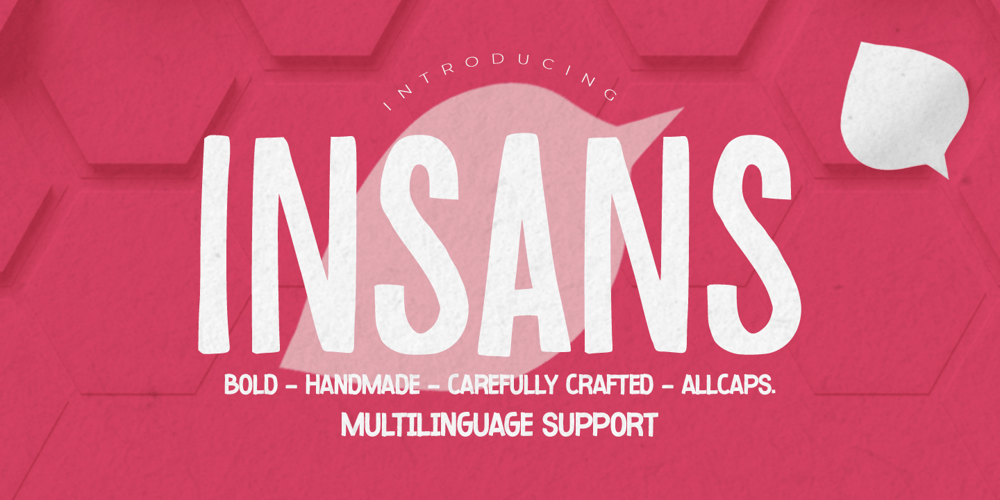
Insans
Insans font
Insans Font Family was designed by Abdul Malik Wisnu, Anang Fibriyanto and published by Gassstype. Insans contains 1 styles and family package options. Hello Everyone, introduce our new product Insans – Bold Handmade Carefully All Caps Display, inspired by the title of the sports poster and We make it very energetically. Insans font with strong and challenging nuances. very suitable for the title, typography, Poster, magazines, brochures, packaging,Websites and much more for your design needs, making your designs more modern and professional.